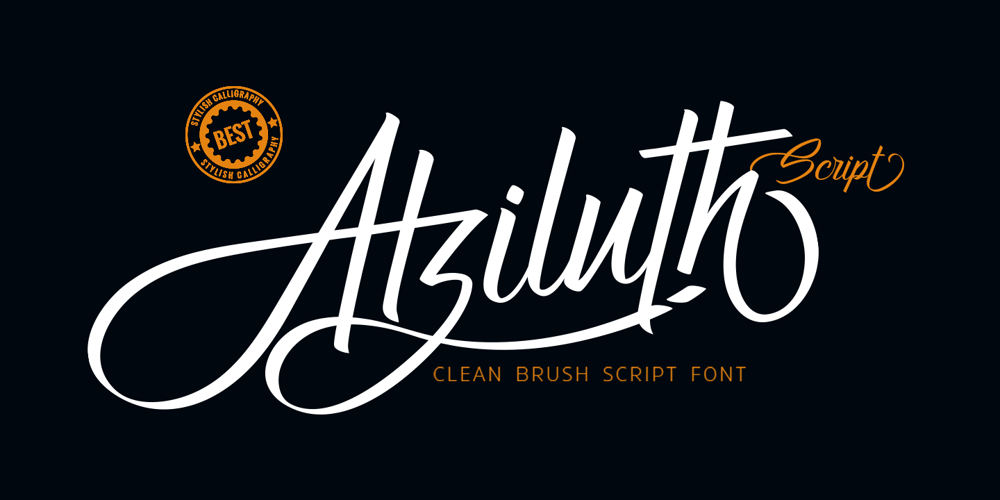
Atziluth
Atziluth font
Atziluth Font Family was designed by Anton Cahyono and published by Motokiwo. Atziluth contains 1 styles and family package options. Atziluth is a gorgeous script font based on calligraphic style. This is an accessible and flexible display font, with tons of alternates and ligatures for branding or logotype purposes. It is perfect to use for various purposes such as branding, quotes, book / cover titles, posters, apparel design, product packaging, labels, special events or anything that need a graceful touch.Feature : Ton of glyphs (include Uppercase, Lowercase, Numerals & Punctuations, Accents, Ligatures, Alternates, and Swashes) Multilingual Support Works on PC & Mac Simple installation